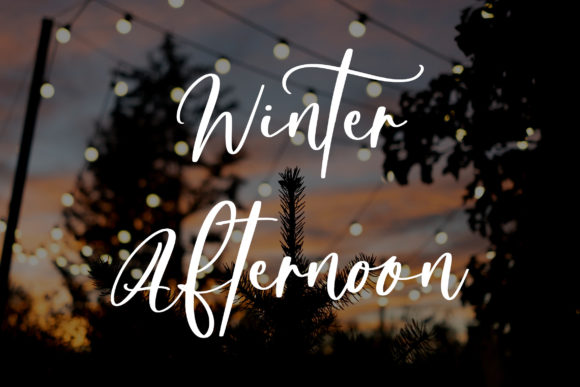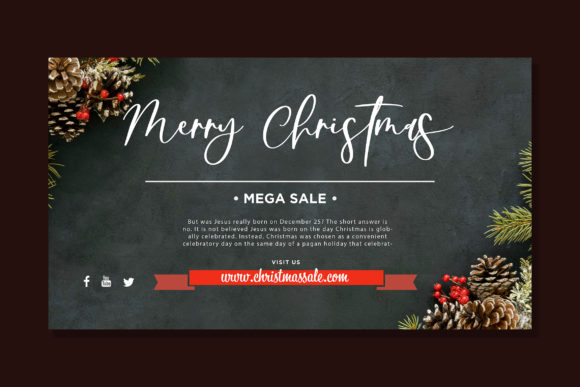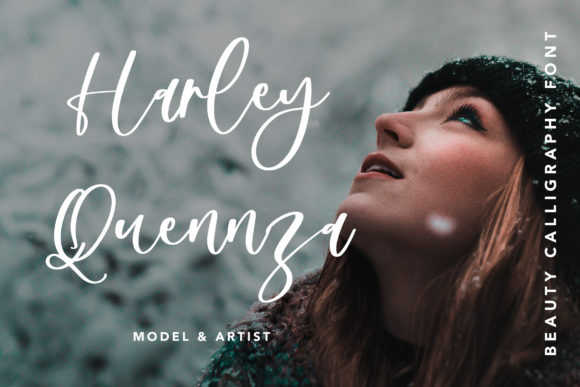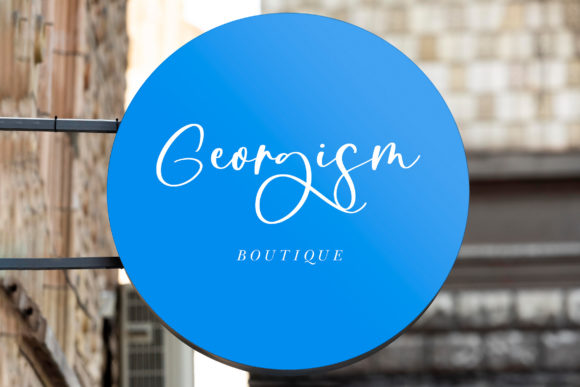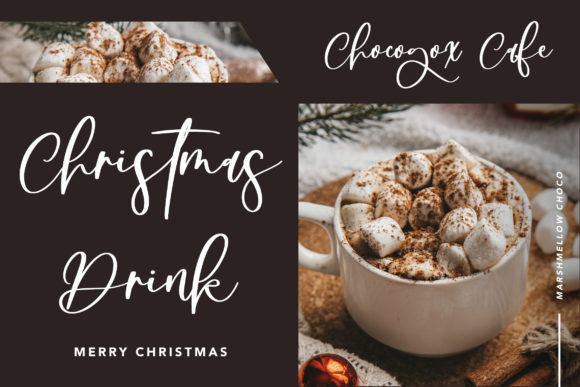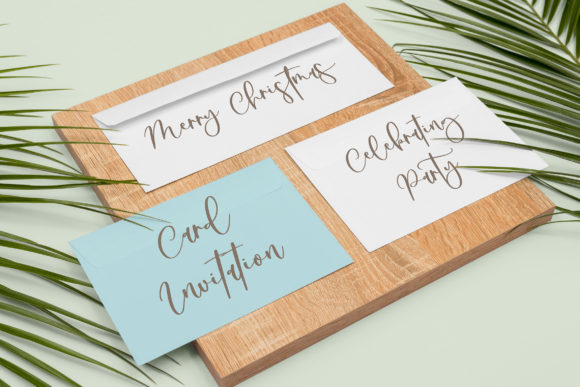
Introducing Distance Relationship Font: The Perfect Choice for Designers and Crafters
Are you a designer or crafter looking for a unique and beautiful font to elevate your designs? Look no further than Distance Relationship Font, a lovely and timeless handwritten font that is sure to capture the attention of your audience. In this article, we’ll take a closer look at what makes Distance Relationship Font so special and why it’s the perfect choice for creating eye-catching logos, branding, and quotes.
A Unique and Beautiful Touch
One of the standout features of Distance Relationship Font is its unique and beautiful touch. Every letter has been carefully crafted to have its own distinct character, making it a true standout in the world of handwritten fonts. Whether you’re looking to create a logo, branding materials, or quotes, Distance Relationship Font is sure to bring your design to life.
Distance Relationship Font is a versatile font that is perfect for designers and crafters of all levels. Whether you’re a seasoned pro or just starting out, this font is easy to use and can be incorporated into a wide range of design projects. From logos and branding materials to quotes and social media graphics, Distance Relationship Font is the perfect choice for anyone looking to add a touch of elegance and sophistication to their designs.
Timeless and Elegant
One of the things that sets Distance Relationship Font apart from other handwritten fonts is its timeless and elegant feel. Unlike some fonts that can look dated or trendy, Distance Relationship Font has a classic look that will never go out of style. This makes it a great choice for designers and crafters who want to create designs that will stand the test of time.
Eye-Catching Logos and Branding
Distance Relationship Font is a great choice for creating eye-catching logos and branding materials. Its unique and beautiful touch makes it perfect for creating memorable and impactful logos that will help your brand stand out from the crowd. Whether you’re looking to create a logo for a new business or rebrand an existing one, Distance Relationship Font is a great choice.
Quotes and Social Media Graphics
In addition to logos and branding materials, Distance Relationship Font is also a great choice for creating quotes and social media graphics. Its elegant and sophisticated feel makes it perfect for sharing inspiring quotes and messages on social media, and its unique and beautiful touch is sure to grab the attention of your followers.
Key Features of Distance Relationship Font
- Unique and beautiful handwritten font
- Perfect for creating eye-catching logos, branding, and quotes
- Every letter has a distinct and beautiful touch
- Timeless and elegant feel
In conclusion, Distance Relationship Font is a must-have for designers and crafters looking to elevate their designs. Its unique and beautiful touch, timeless and elegant feel, and versatility make it the perfect choice for creating eye-catching logos, branding, and quotes. Whether you’re a seasoned pro or just starting out, Distance Relationship Font is a great addition to any design toolkit.